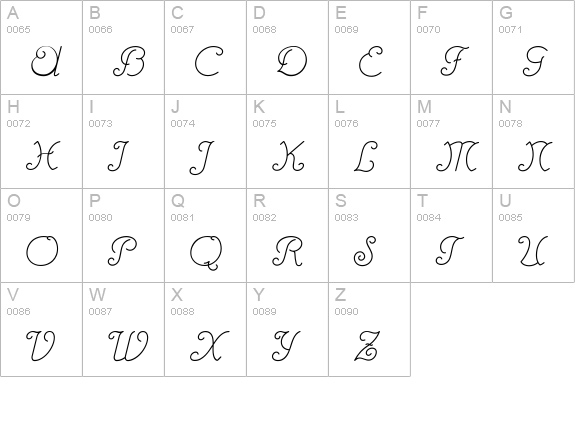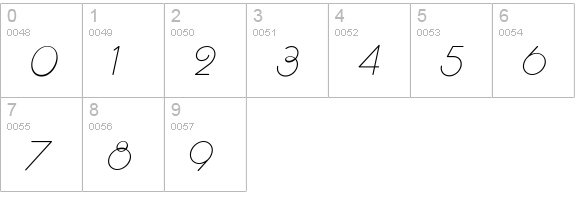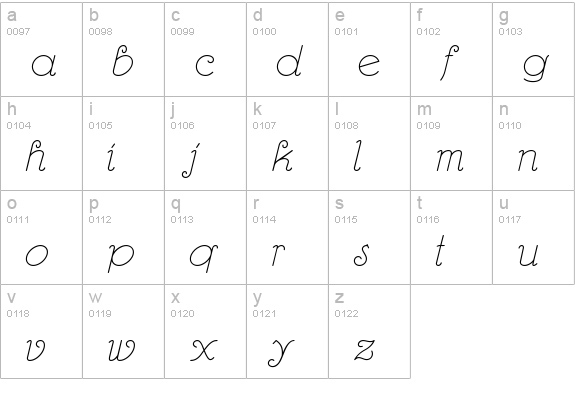
Rhumba Script NF Font Details
Rhumba Script NF font is a charming and elegant typeface that exudes a sense of warmth and sophistication. Its flowing and graceful letterforms make it perfect for a wide range of design projects, from invitations to branding to packaging. The unique and intricate details of this font add a touch of whimsy and playfulness to any text. And the best part? Rhumba Script NF font is free to download at FontsMarket.com. Now you can add a touch of class to your designs without breaking the bank. Don't miss out on this opportunity to enhance your projects with this beautiful and versatile font. Download Rhumba Script NF today and let your creativity shine!